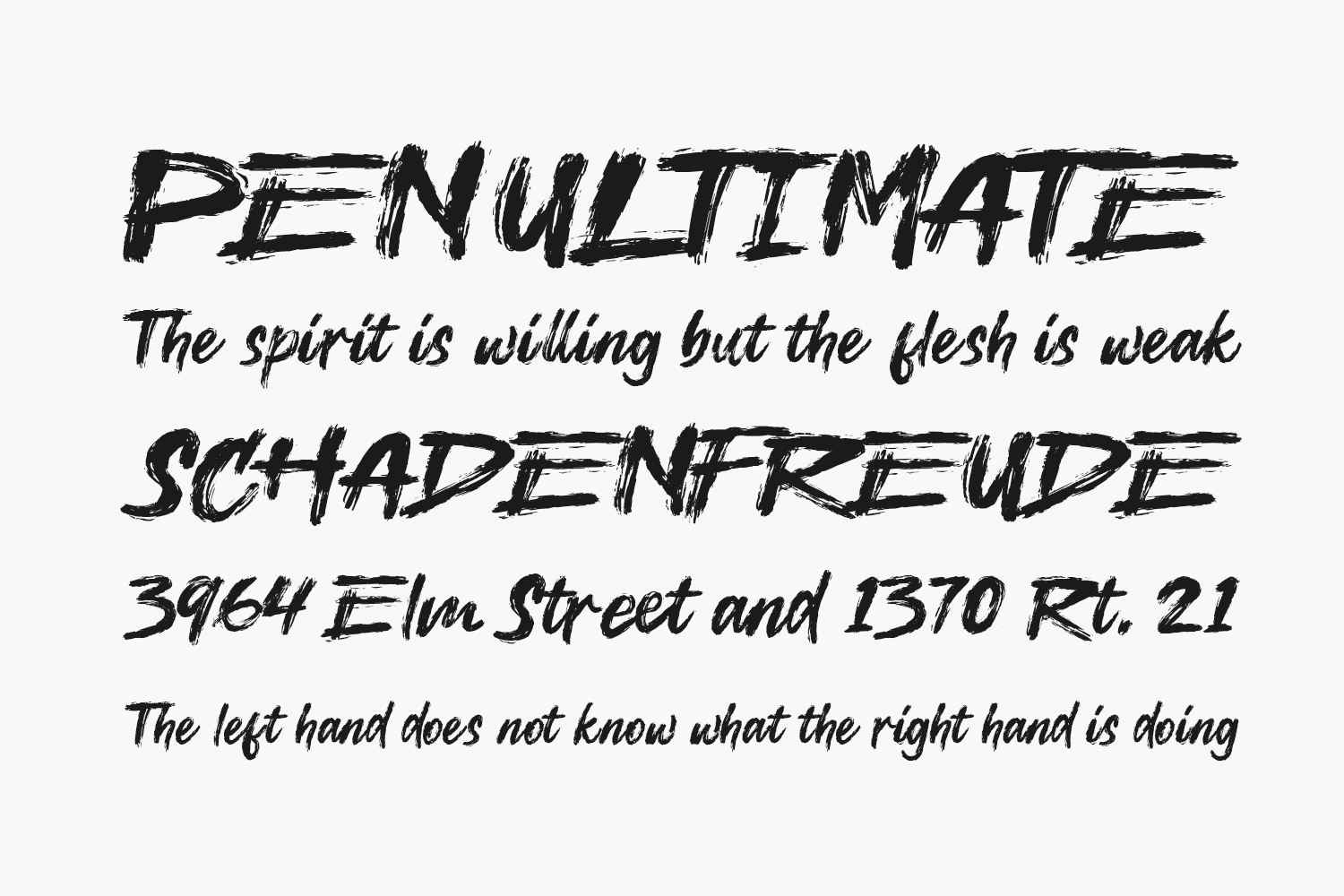
Redslit Free Font is a cool, brushed display font. Whatever the topic, this font will be a wonderful asset to your font library, as it has the potential to enhance any creation.
Designed by Zamjump